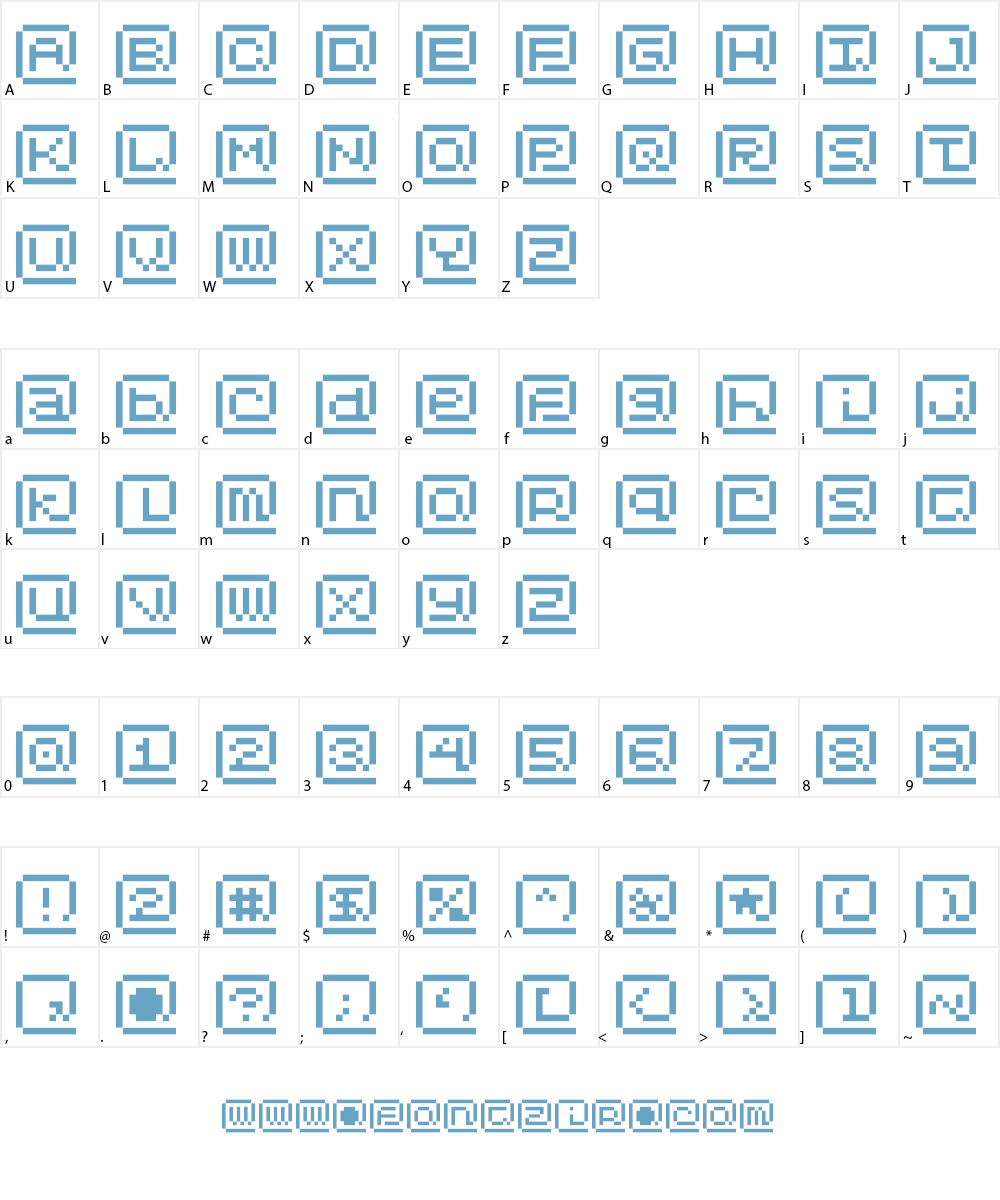
Original size: 6.75pt (use multiples of this size for pixel perfection)
Just a doodle... Inspired by the @ symbol, of course! This makes me think of icons/dingbats and ASCII roguelikes.